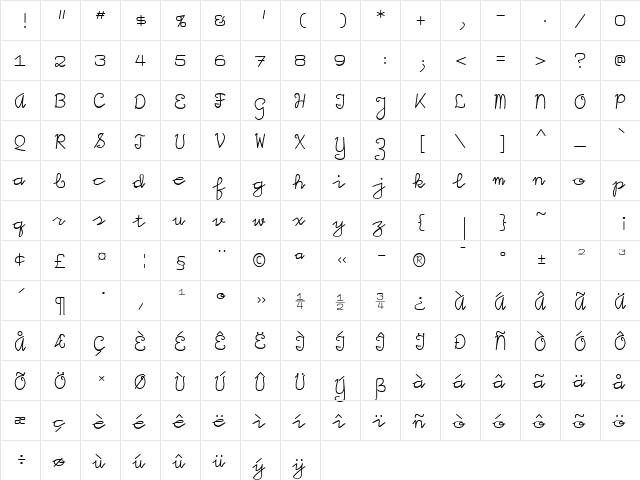
IggoliteMono Regular
Design Context for IggoliteMono Typeface
IggoliteMono brings the precise, column-aligned rhythm of monospaced typography to designs that value technical clarity and systematic order.
Pro Tip: Use IggoliteMono with slightly increased line-height for extended reading — fixed-width spacing can feel dense in longer passages without extra breathing room.